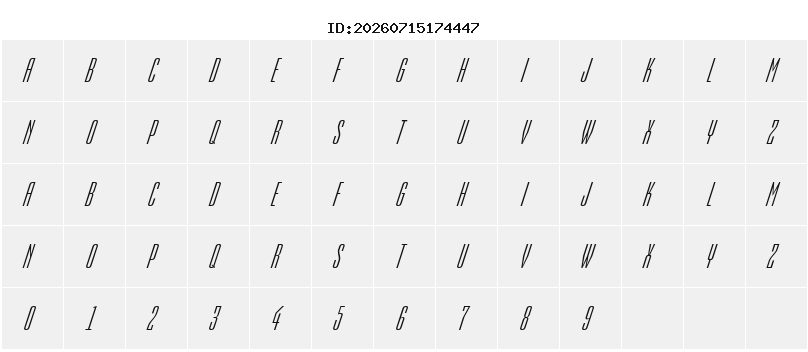
• Font Name: a_Empirial
• Full Font Name: a_Empirial Italic
About a_Empirial.ttf
a_Empirial.ttf is a modern, elegant sans-serif font designed for ultimate readability and visual harmony. Perfect for branding, headlines, web design, and print materials.